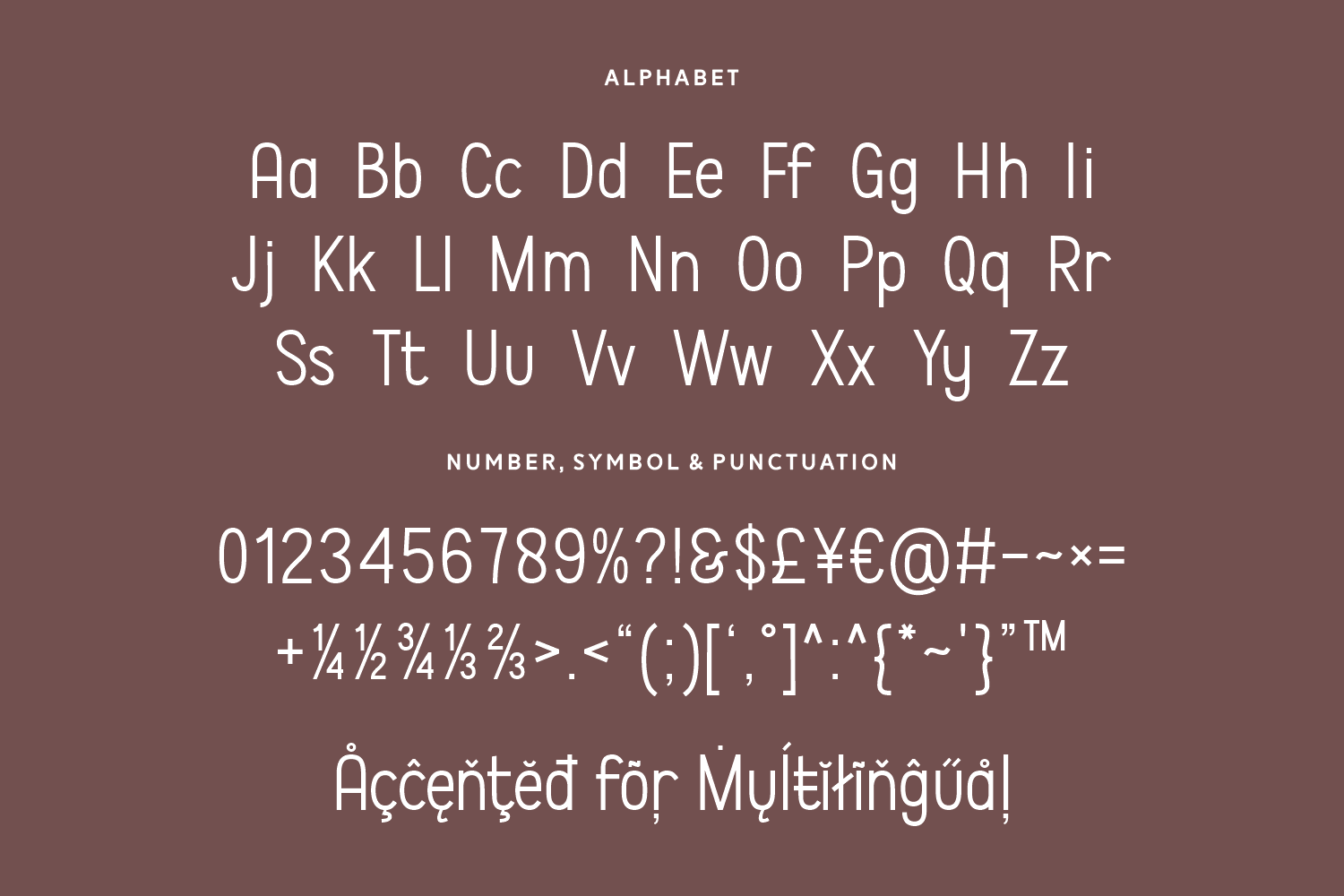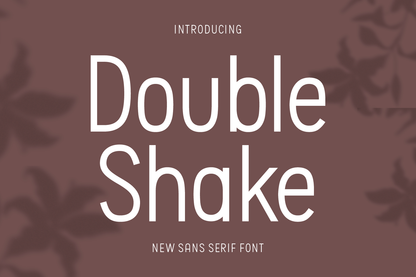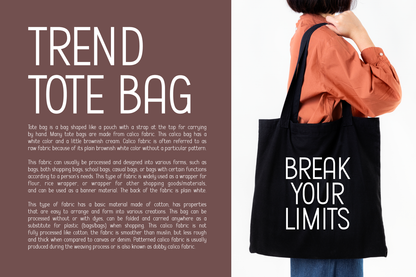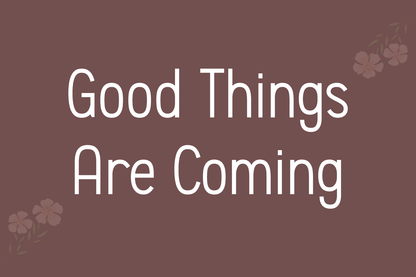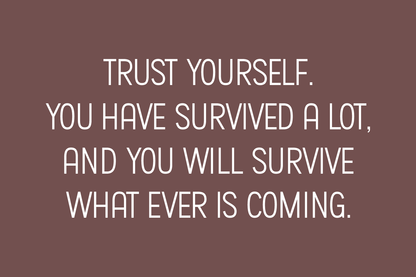
Double Shake is a tall, refined sans-serif typeface with a soft and stylish touch. Its clean lines and balanced letter spacing make it a go-to for lifestyle design, fashion branding, quotes, and modern posters with a relaxed yet polished tone.